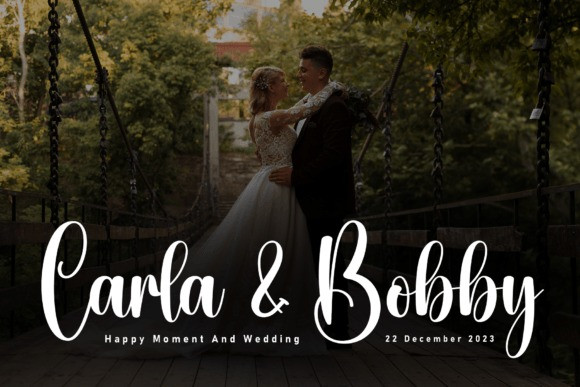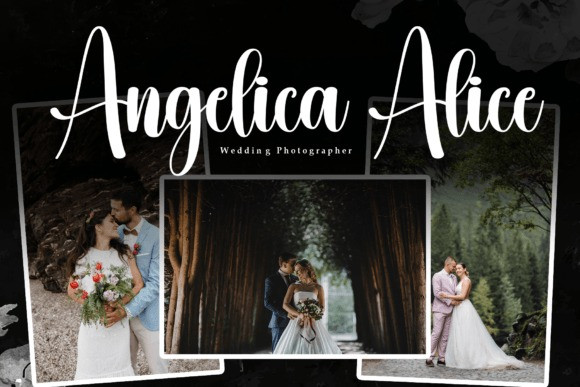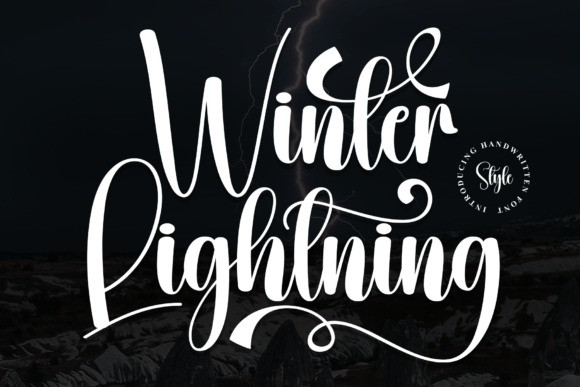
Winter Lightning Script Font is a captivating handwritten font adorned with elegant swashes, adding a touch of sophistication to your projects. Its graceful strokes and stylish curves evoke a sense of winter charm and timeless beauty. Perfect for adding a touch of elegance to invitations, cards, or any design where a blend of handcrafted warmth and refined details is desired. Illuminate your creations with the enchanting allure of Winter Lightning.